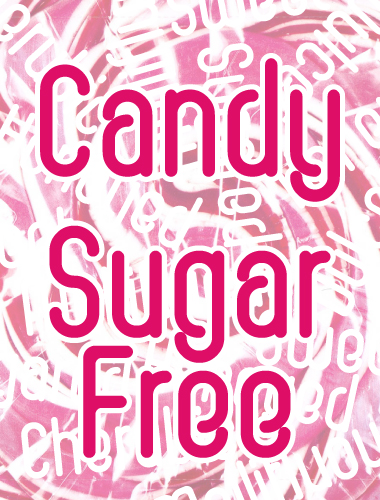
Candy
sweet?
Awesome, simple but strangely elegant font. 10/10
Can I clone it please?
Looking sweet!
I'm going to the dentist. More please!
Very simple and very elegant. That's something I love!
uppercase please... this design worth it. a nice "e"
I'm with the guys!
Cho Chweet!